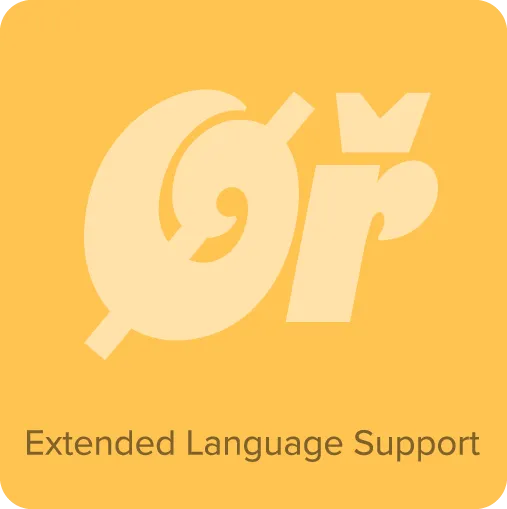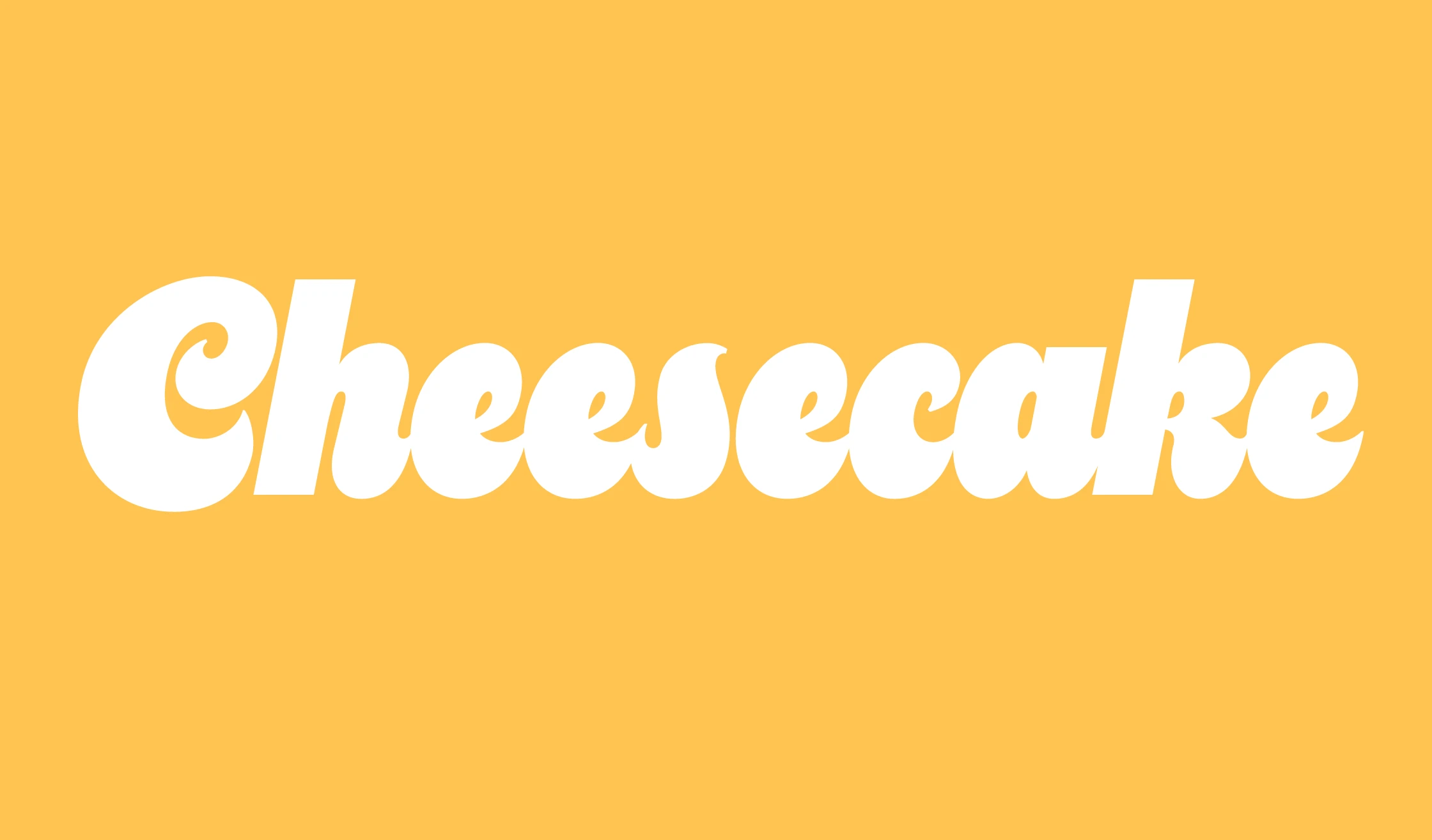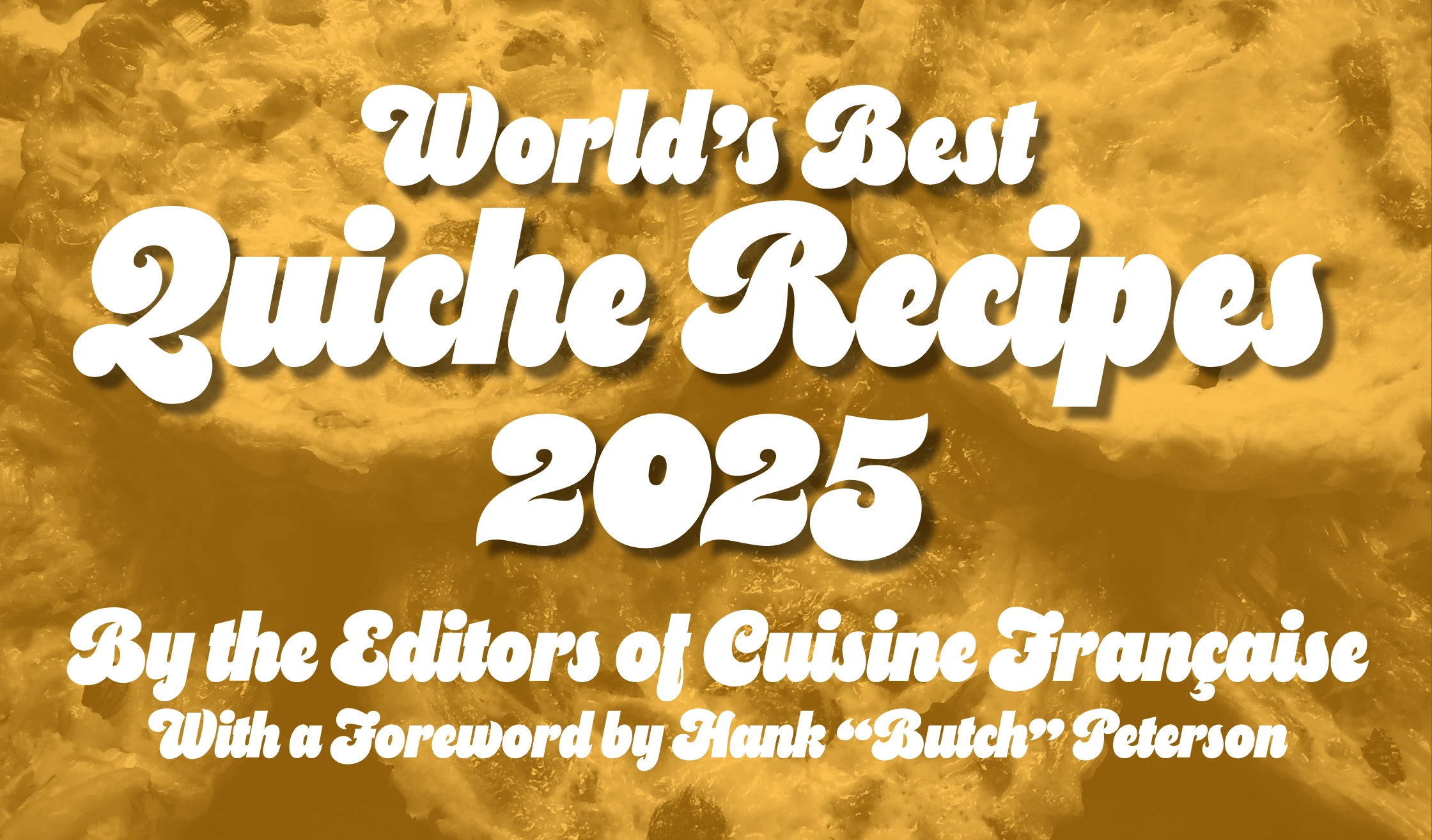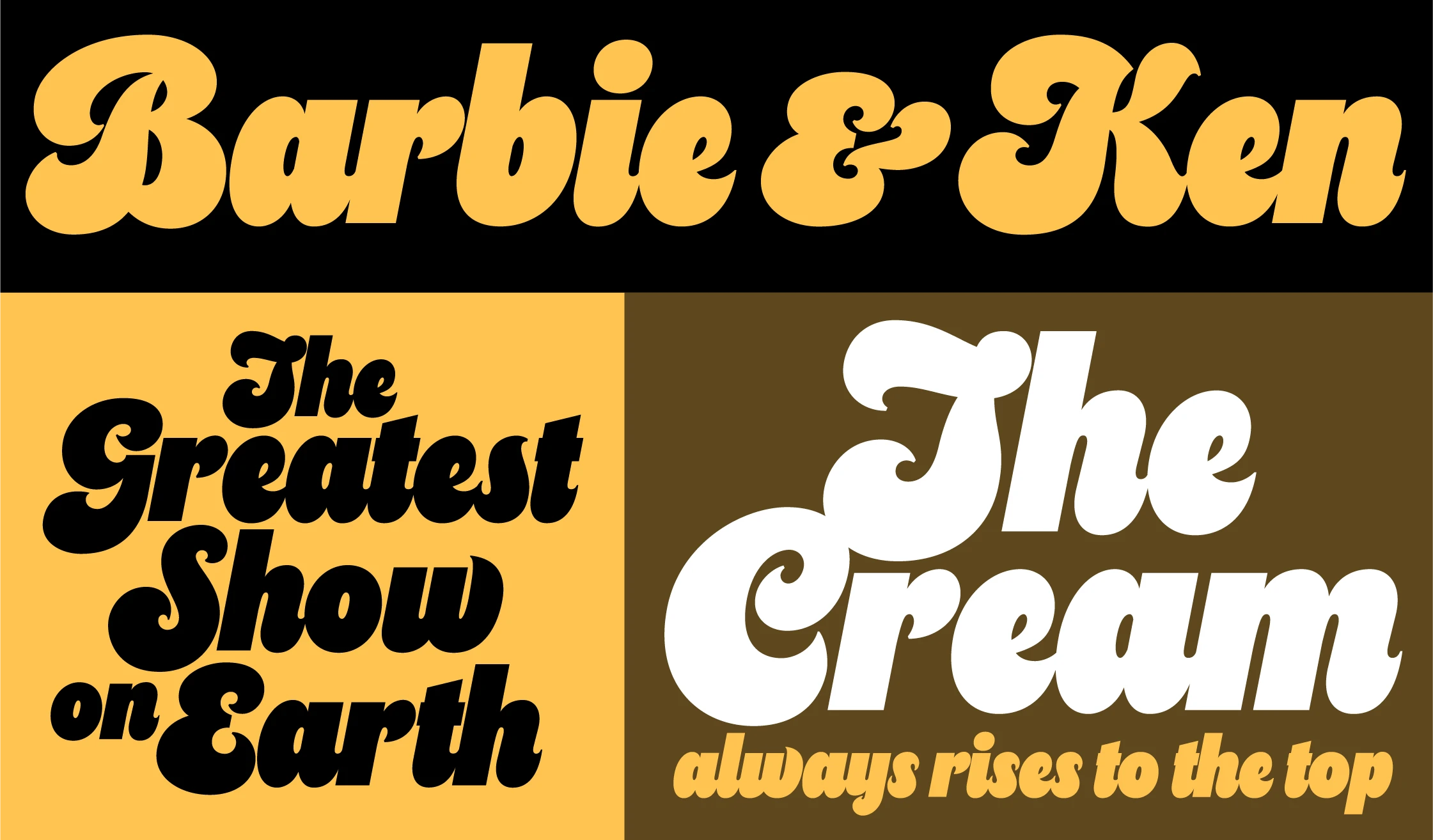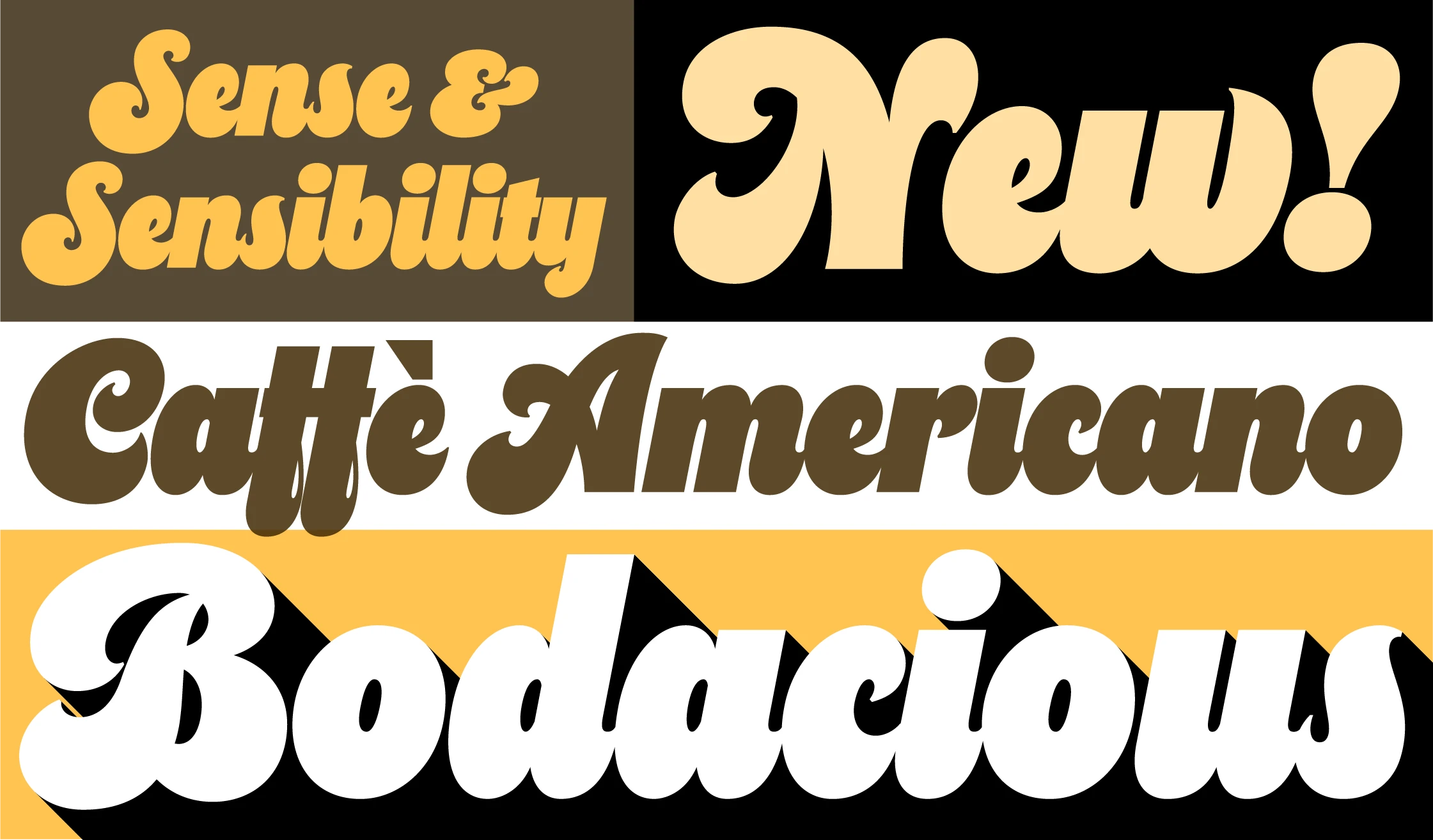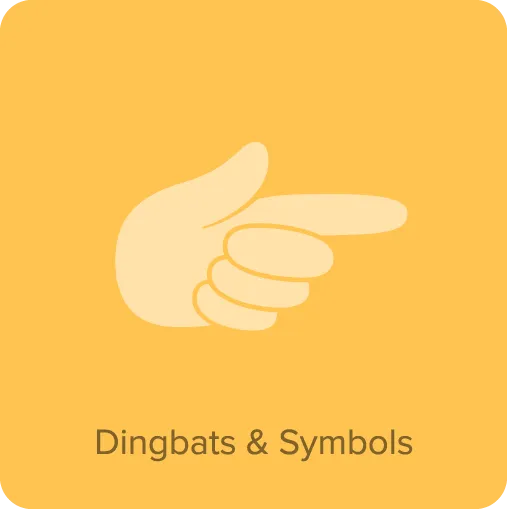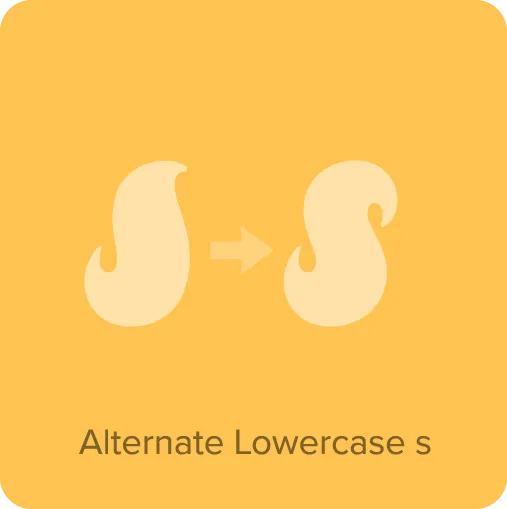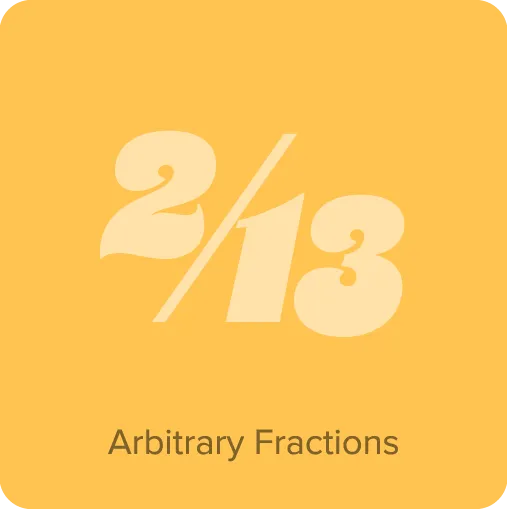
- Dingbats & symbols.
- Alternate s.
- Contextual alternates.
- Arbitrary fractions.
- Extended language support for most Latin-based Western and Central European languages.
Cheesecake (2024) is an ultra-bold script inspired by lettering of the sixties and seventies. It’s a design that Mark Simonson found himself compulsively drawing during the development of Dreamboat (2022). Cheesecake is simpler and less formal — almost a caricature of the style — with a larger x-height and more extreme forms. It has an alternate to the default cursive-style lowercase “s” and a full set of dingbats. It’s keen for branding, advertising, posters, book covers, packaging, and the like.